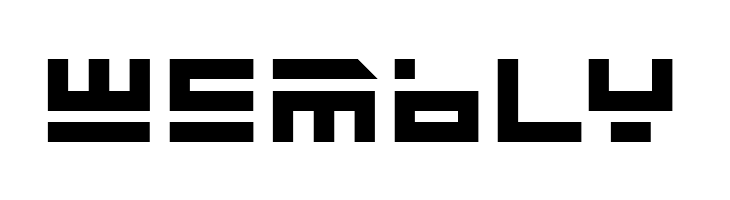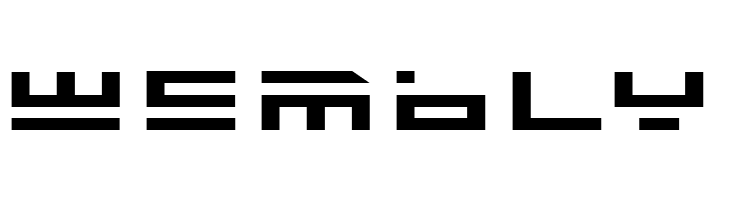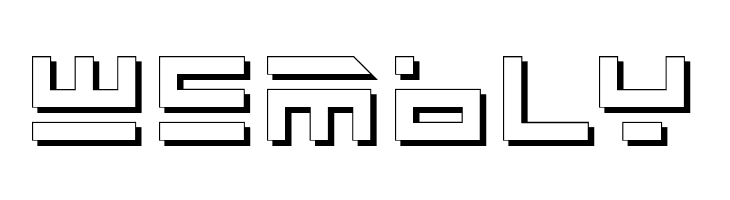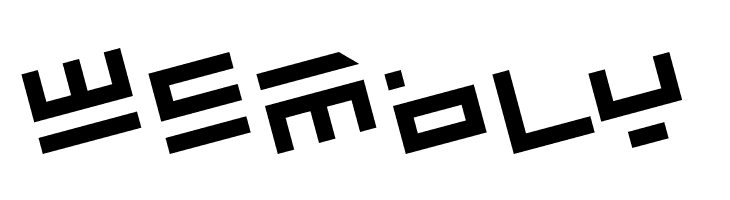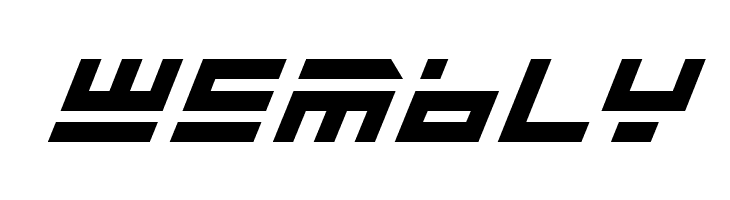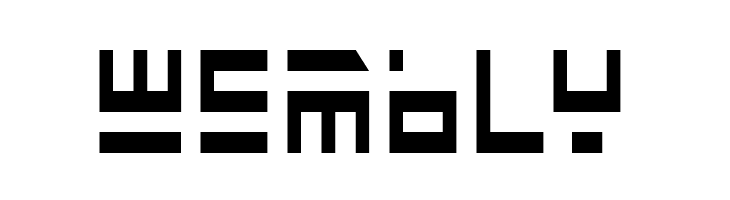
Banksia-Bold Font
A bold, geometric font with a futuristic and digital aesthetic.
A futuristic, geometric font with bold, angular shapes.
A futuristic, geometric font with a shadow effect and bold, angular lines.
A bold, italicized font with a futuristic, angular design.
A futuristic, geometric font with blocky, angular letterforms and a condensed style.
A futuristic, angular, and italicized font with a bold, condensed style.
A futuristic, angular italic font with a dynamic and tech-inspired design.